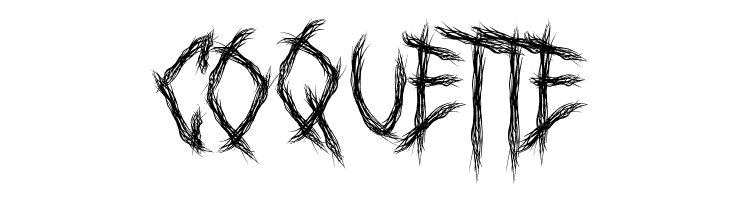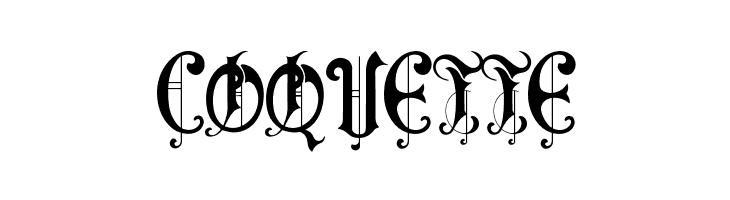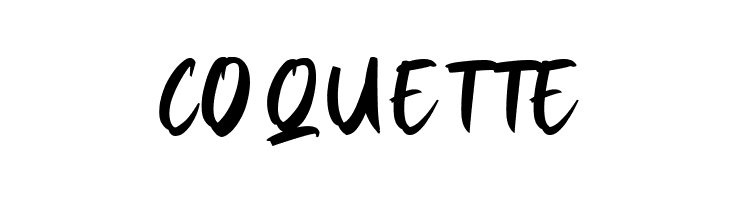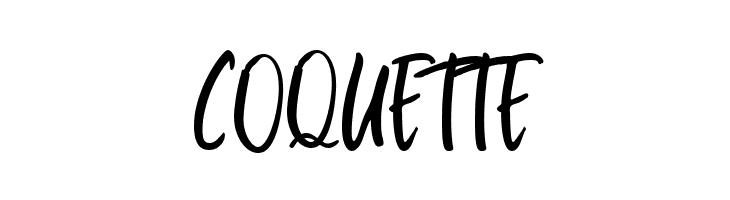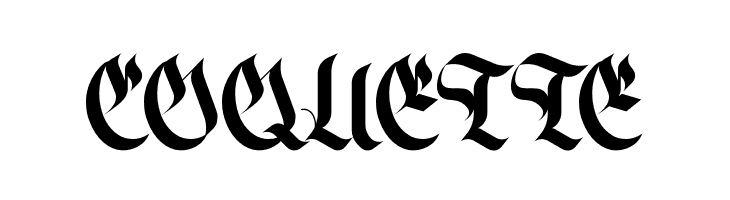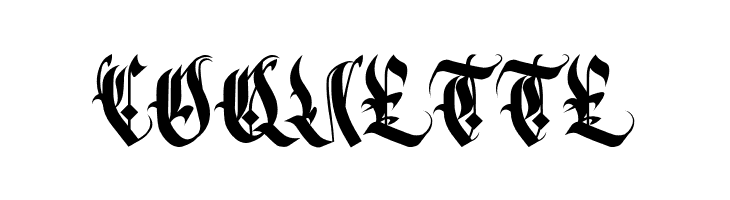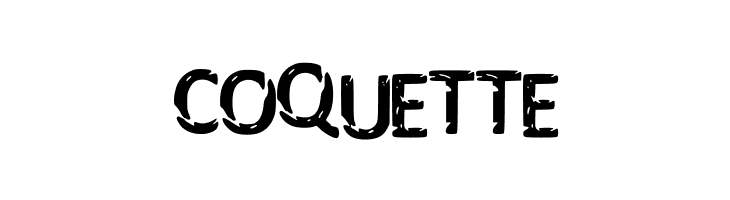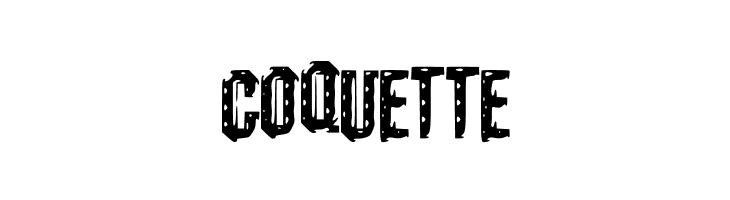
A bold, intricate Blackletter-style font with dramatic flourishes.
A bold, distressed font with a rugged, grungy texture.
A bold, industrial font with a distressed, mechanical design.
An ornate and decorative font with elaborate swirls and flourishes.
A chaotic, textured font with jagged strokes, ideal for eerie or mysterious themes.
A bold, expressive handwritten font with high contrast and dynamic style.
A bold, calligraphic font with dramatic strokes and sharp edges.
A bold, gothic Blackletter font with sharp, angular lines and intricate detailing.
A gothic, ornate font with high contrast and elaborate flourishes.
A bold, expressive handwritten font with fluid, dynamic strokes.